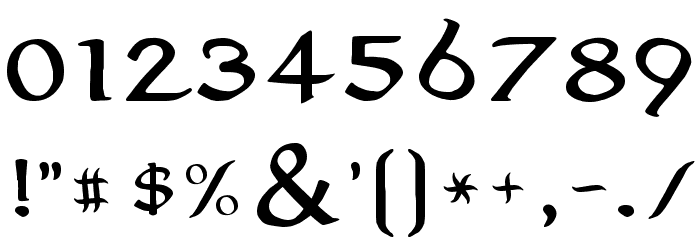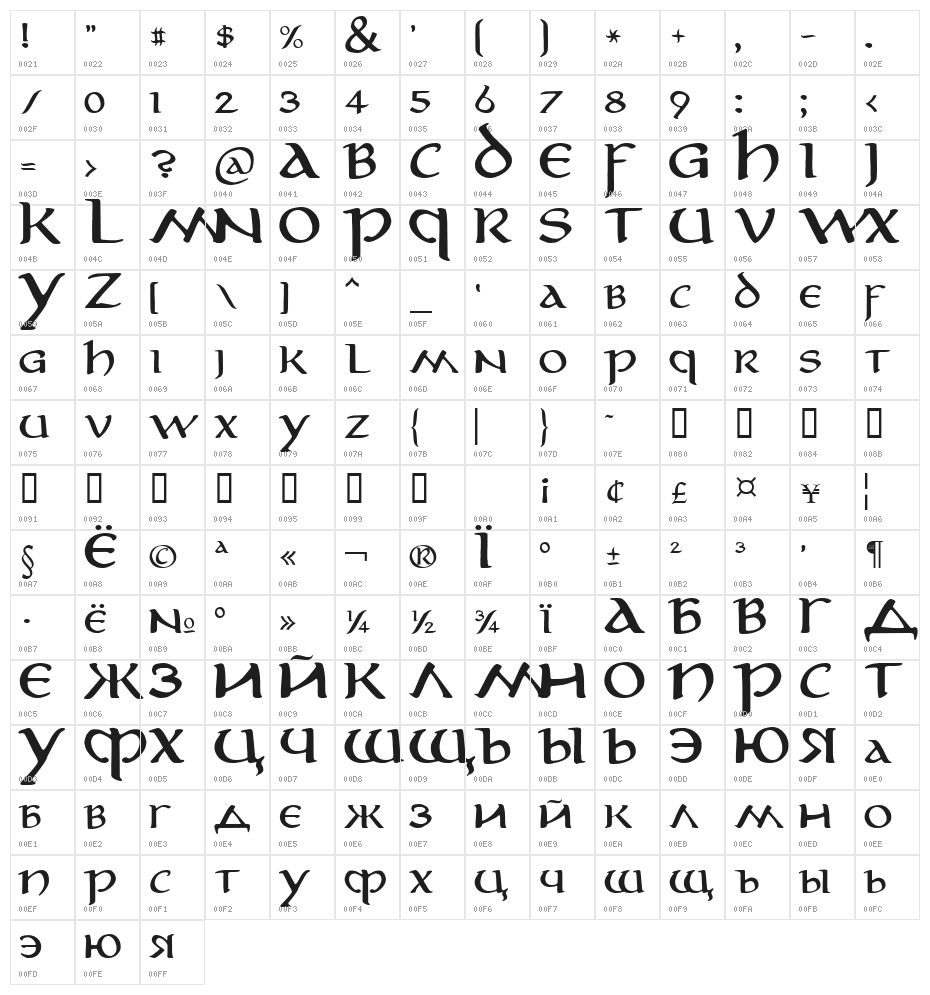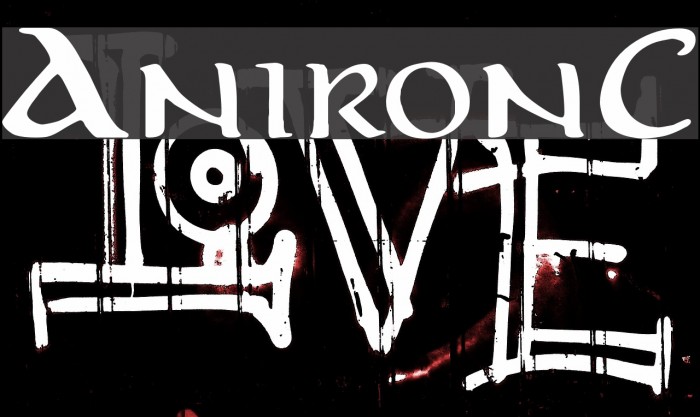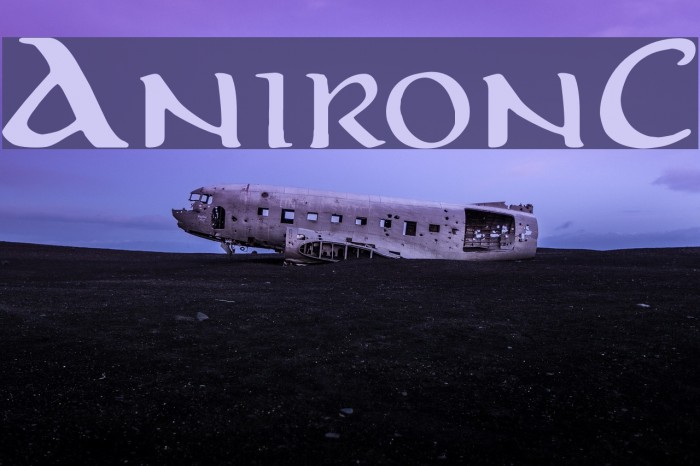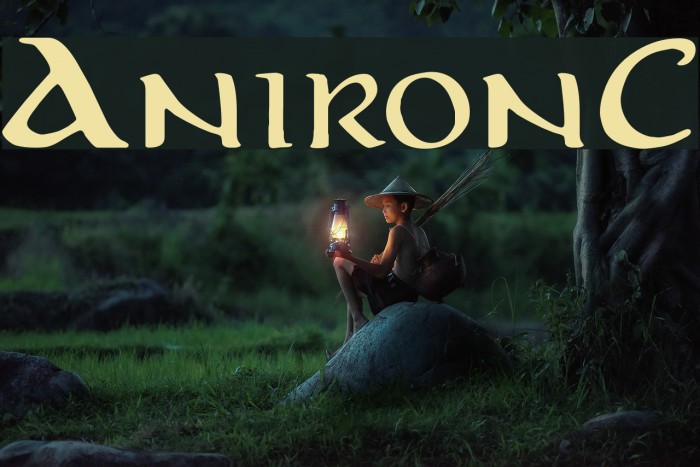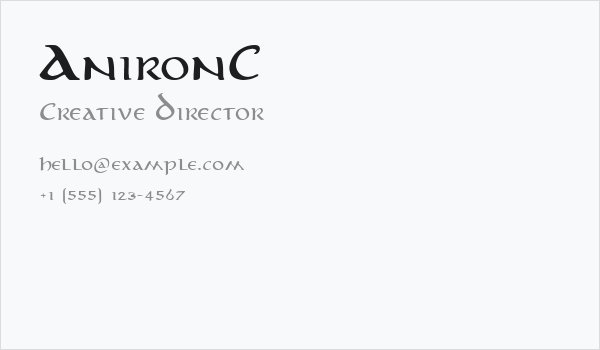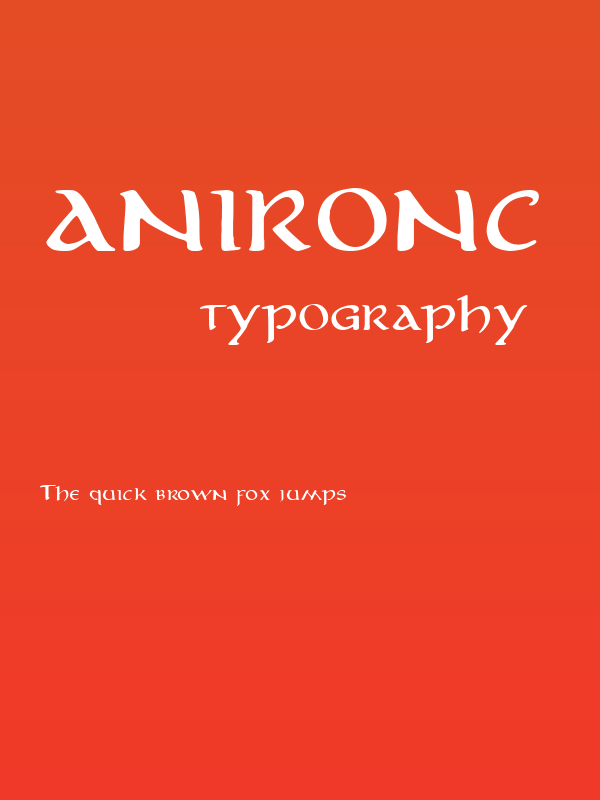
AnironC Font
AnironC Description
This font features a unique, decorative style with a medieval or fantasy-inspired aesthetic. The characters have a distinct, hand-drawn appearance with sharp, angular strokes and subtle curves that add to its ornate quality. The uppercase and lowercase letters maintain a consistent style, with some characters exhibiting elongated serifs and others having pointed terminals. The numerals and special characters are crafted to match the overall theme, providing a cohesive look. This font is ideal for projects that require a touch of fantasy or historical elegance.
| Proposed Projects | Ideal for fantasy-themed designs, book covers, movie posters, or any project needing a historical or mythical touch. |